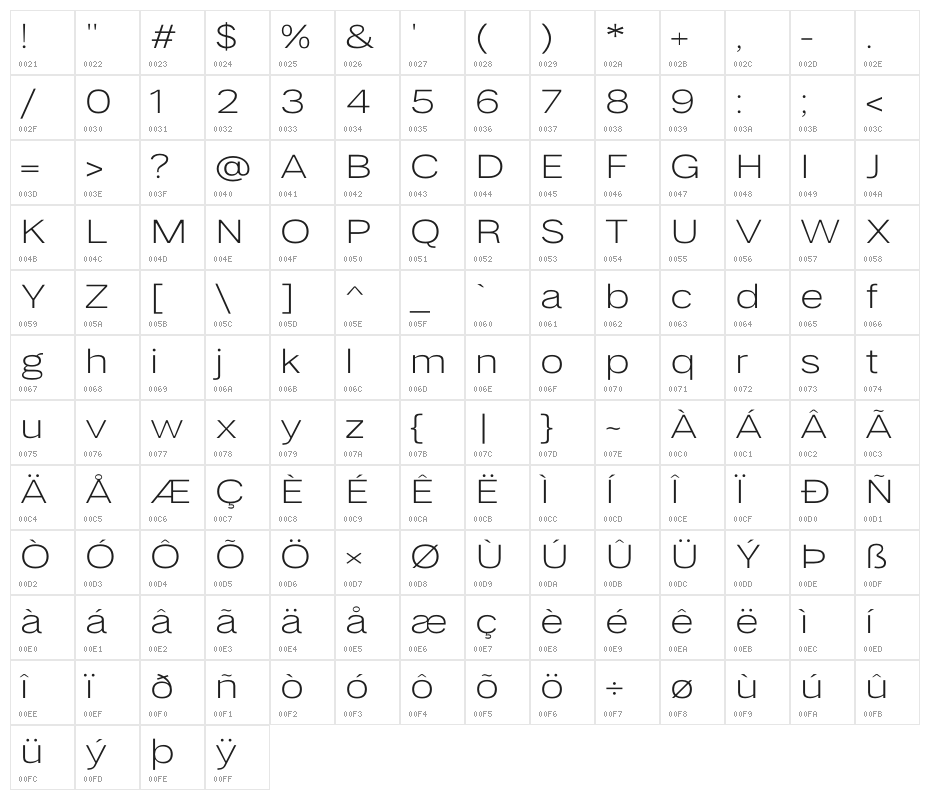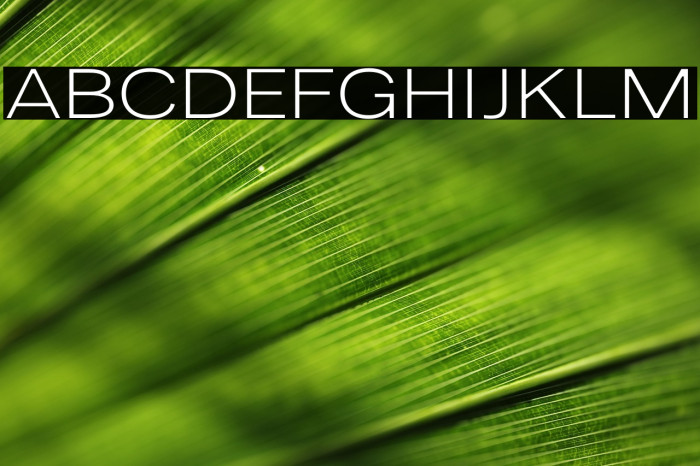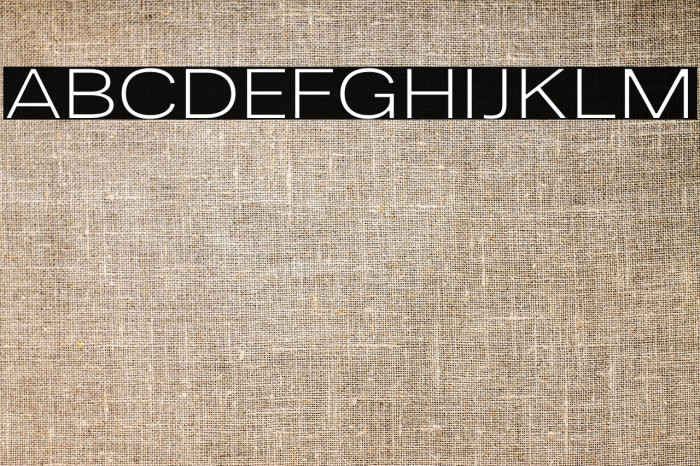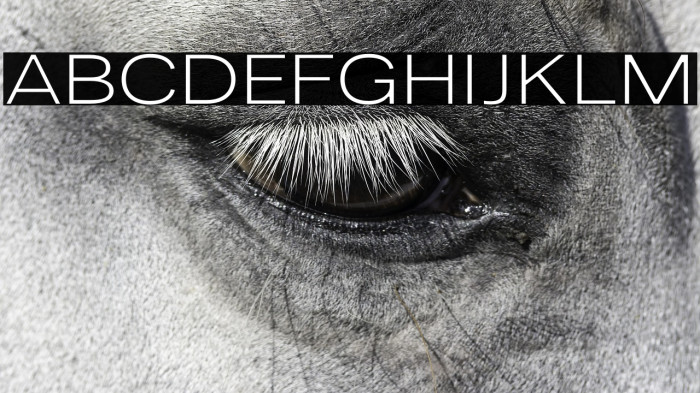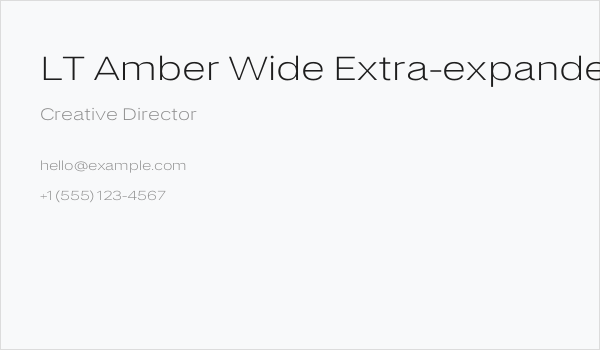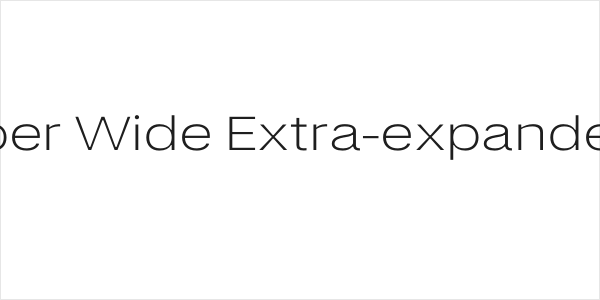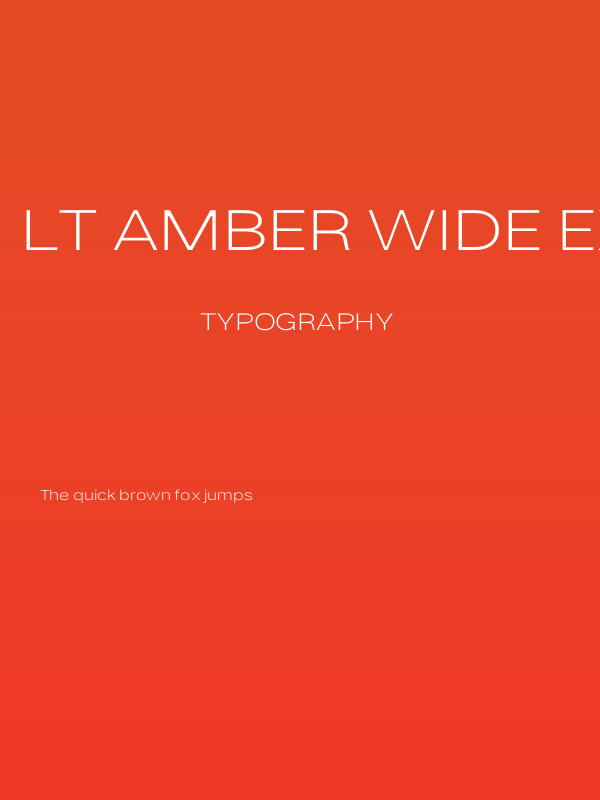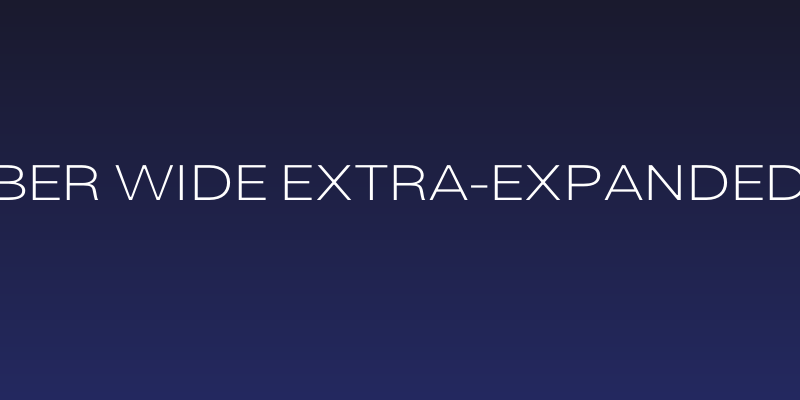
LT Amber Wide Extra-expanded Light Font
LT Amber Wide Extra-expanded Light Description
This font features a clean and modern sans-serif style with an extra-expanded width, giving it a spacious and airy appearance. The characters are crafted with a light weight, contributing to a sleek and elegant look. The design maintains a consistent stroke width throughout, resulting in low contrast. Its geometric shapes and precise lines make it suitable for contemporary design projects. The character spacing is normal, ensuring readability while maintaining a stylish aesthetic. This font's simplicity and clarity make it versatile for various applications.
| Proposed Projects | Ideal for branding, advertising, and editorial design where a modern and spacious look is desired. |